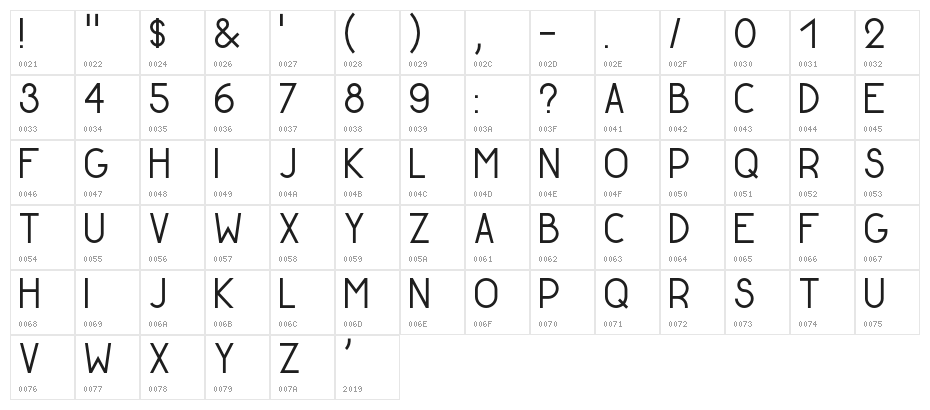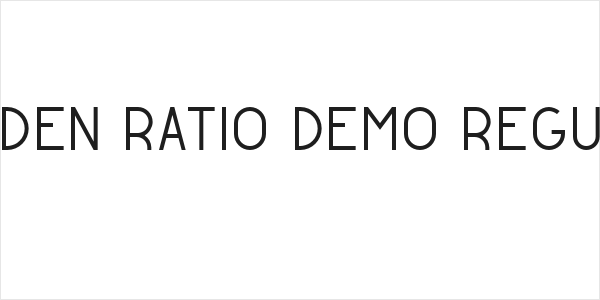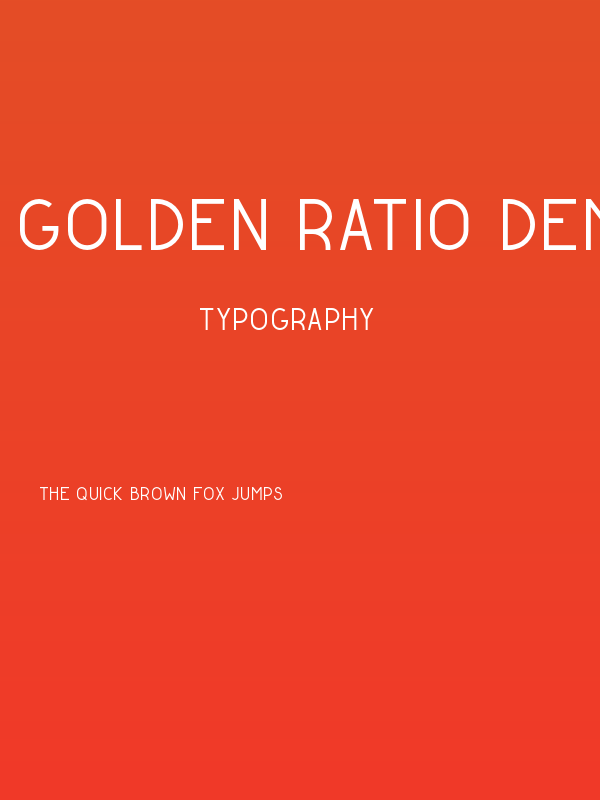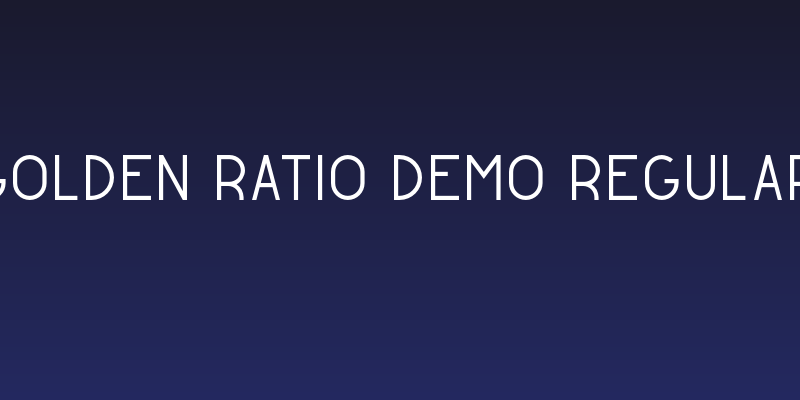
Golden Ratio Demo Regular Font
Golden Ratio Demo Regular Description
This font exhibits a clean and modern aesthetic with a geometric structure. The characters are evenly spaced, providing a balanced and harmonious appearance. The uppercase letters are bold and assertive, while the lowercase letters maintain a consistent style that complements the overall design. The numerals are clear and legible, making them suitable for various applications. Special characters are included, offering versatility for different contexts. The font's simplicity and clarity make it ideal for projects that require a contemporary and professional look.